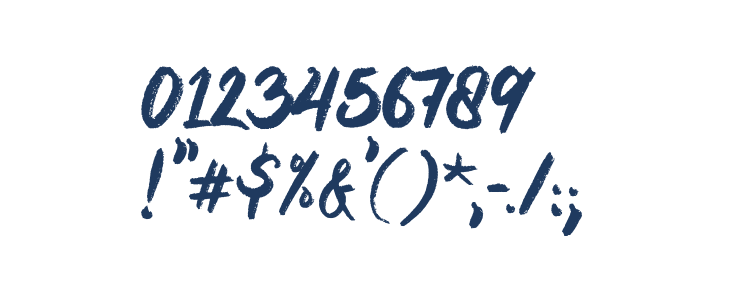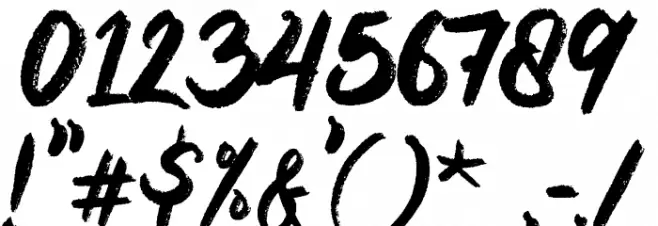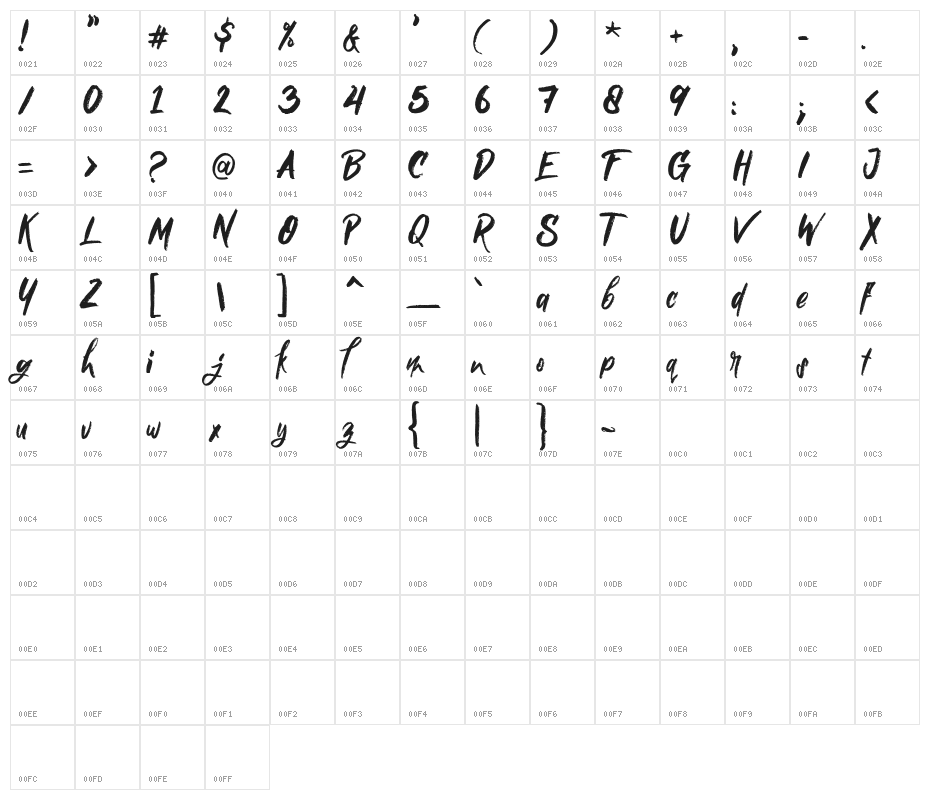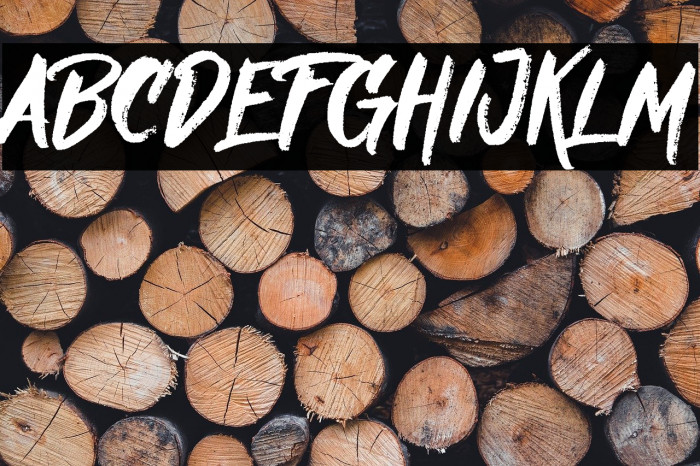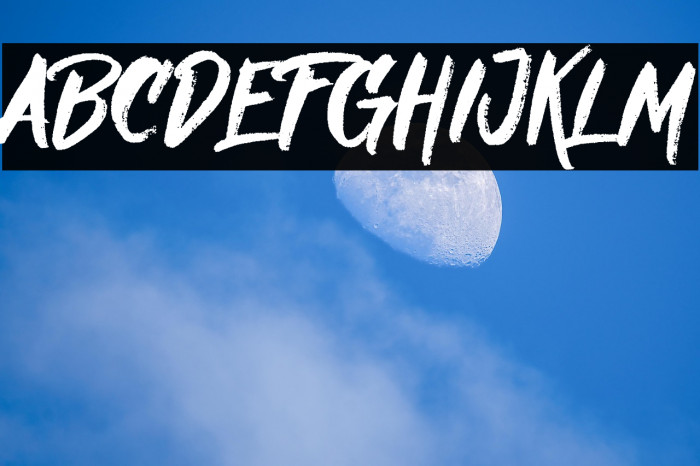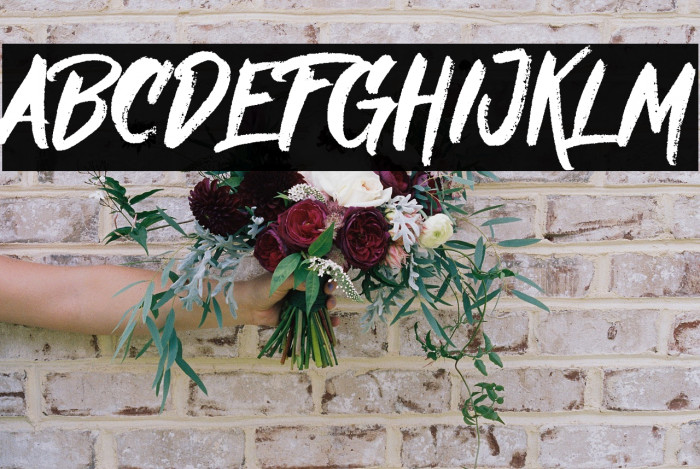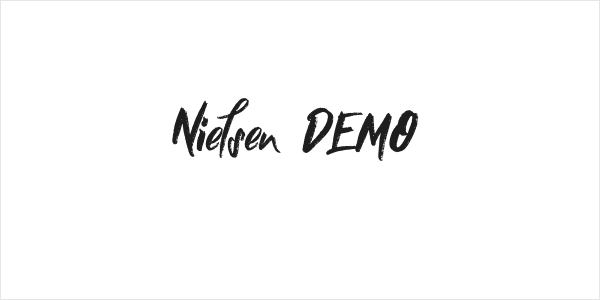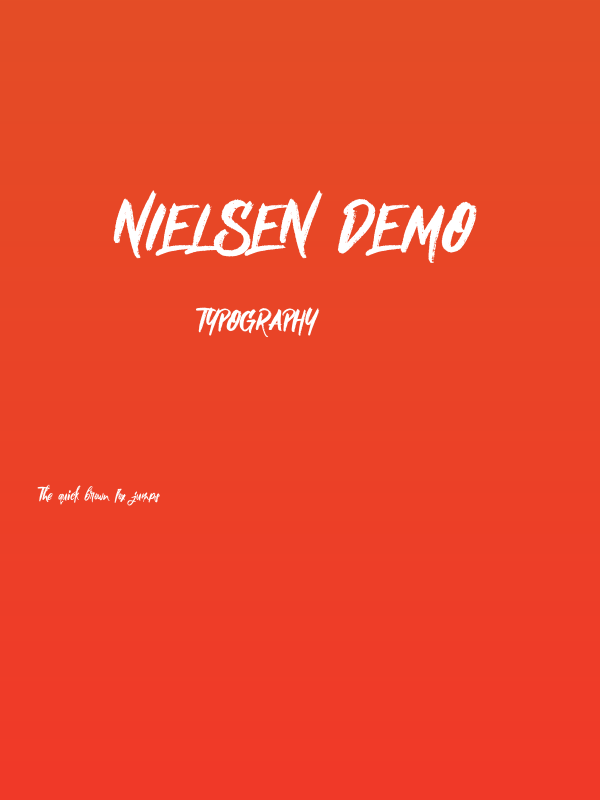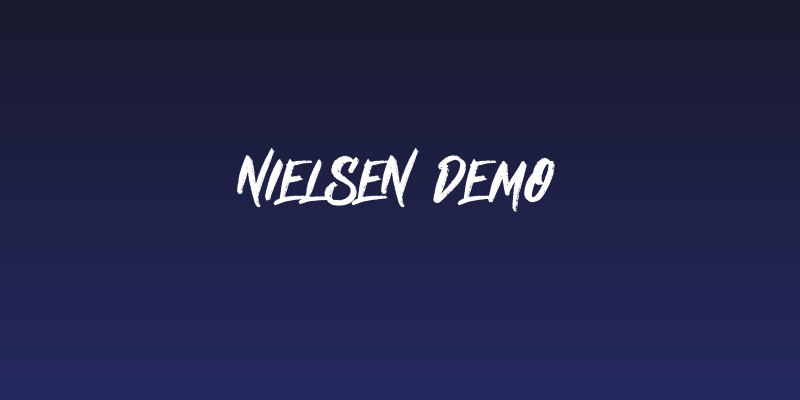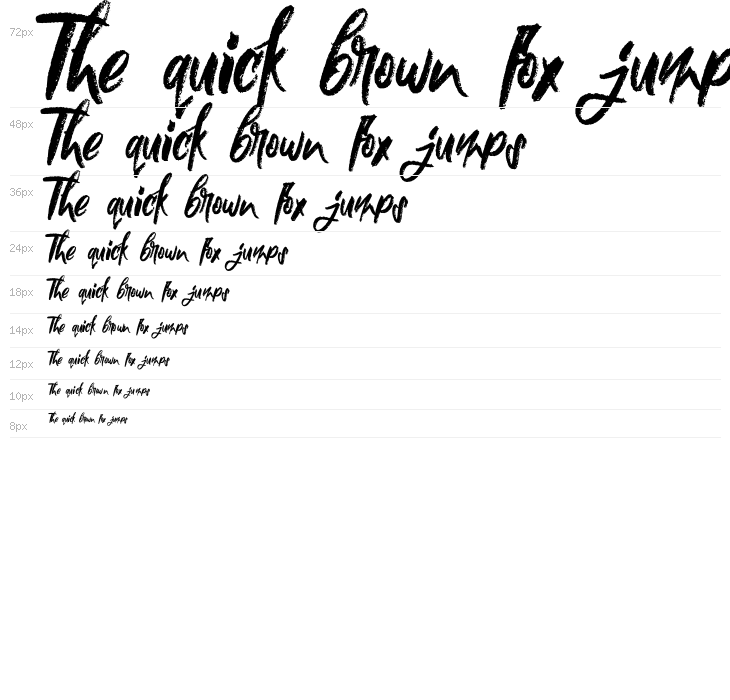
Nielsen DEMO Font
Nielsen DEMO Description
This font exudes a bold and energetic style, characterized by its brush-like strokes that convey a sense of movement and dynamism. The uppercase letters are robust and slightly slanted, giving them a sense of urgency and flair. The lowercase letters maintain the same energetic style, with some letters featuring unique loops and curves that add to the font's personality. Numbers are equally bold, ensuring they stand out in any design. The special characters are crafted with the same attention to detail, making them seamlessly integrate with the rest of the font. The overall texture of the font suggests a hand-painted or graffiti-like appearance, making it ideal for projects that require a touch of creativity and spontaneity.
| Proposed Projects | Ideal for posters, branding, album covers, and any creative project that requires a bold statement. |